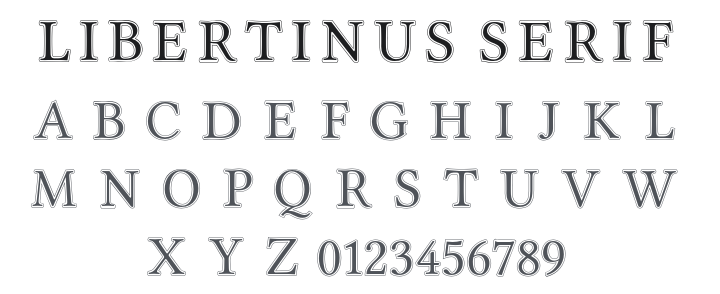
Libertinus Serif Initials Font
by Philipp H. Poll
Libertinus Serif Initials Font
About Libertinus Serif Initials
Libertinus is a sophisticated and versatile font family that serves as a fork of the well-known Linux Libertine and Linux Biolinum fonts. Designed to provide an improved and more polished alternative, Libertinus refines the typographic details and enhances compatibility with modern typesetting systems. It includes a comprehensive range of styles, from serif to sans-serif and monospaced variations, making it suitable for a wide variety of professional and academic applications. Additionally, it features extensive Unicode coverage, including support for mathematical symbols, Greek, Cyrillic, and other scripts, making it a popular choice for scholarly publishing and technical documentation.
One of the key advantages of the Libertinus font family is its emphasis on quality and open-source accessibility. Developed using modern font development tools such as FontForge and maintained by an active community, it benefits from continuous improvements in spacing, kerning, and hinting. Libertinus Serif, the most prominent style, offers a classic yet refined appearance reminiscent of traditional book typefaces, while Libertinus Sans provides a clean, contemporary counterpart. Meanwhile, Libertinus Mono serves as an elegant monospaced option for coding and terminal applications. With its broad character support and careful attention to typographic precision, Linux Libertinus remains a highly regarded choice for users seeking a free and open-source font with professional-grade quality.
Libertinus sub-families: Libertinus Serif, Libertinus Serif Display, Libertinus Serif Initials, Libertinus Sans, Libertinus Mono, Libertinus Math and Libertinus Keyboard.